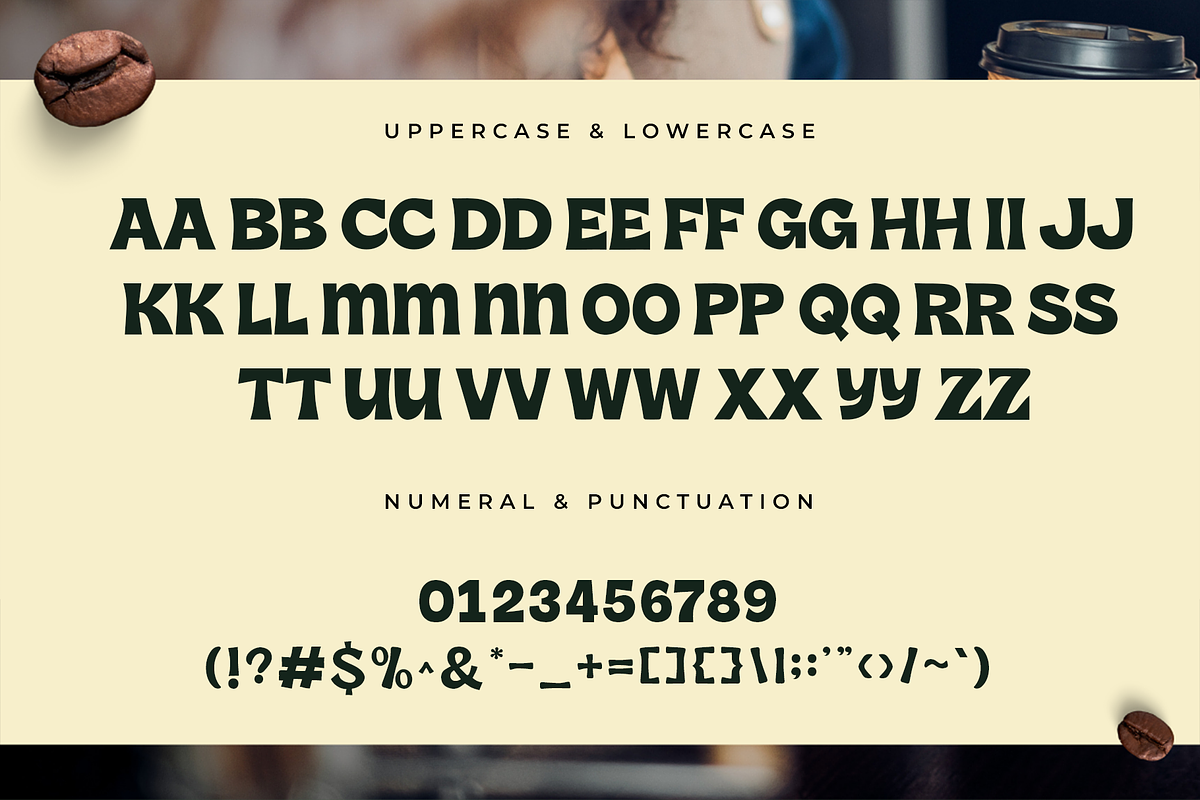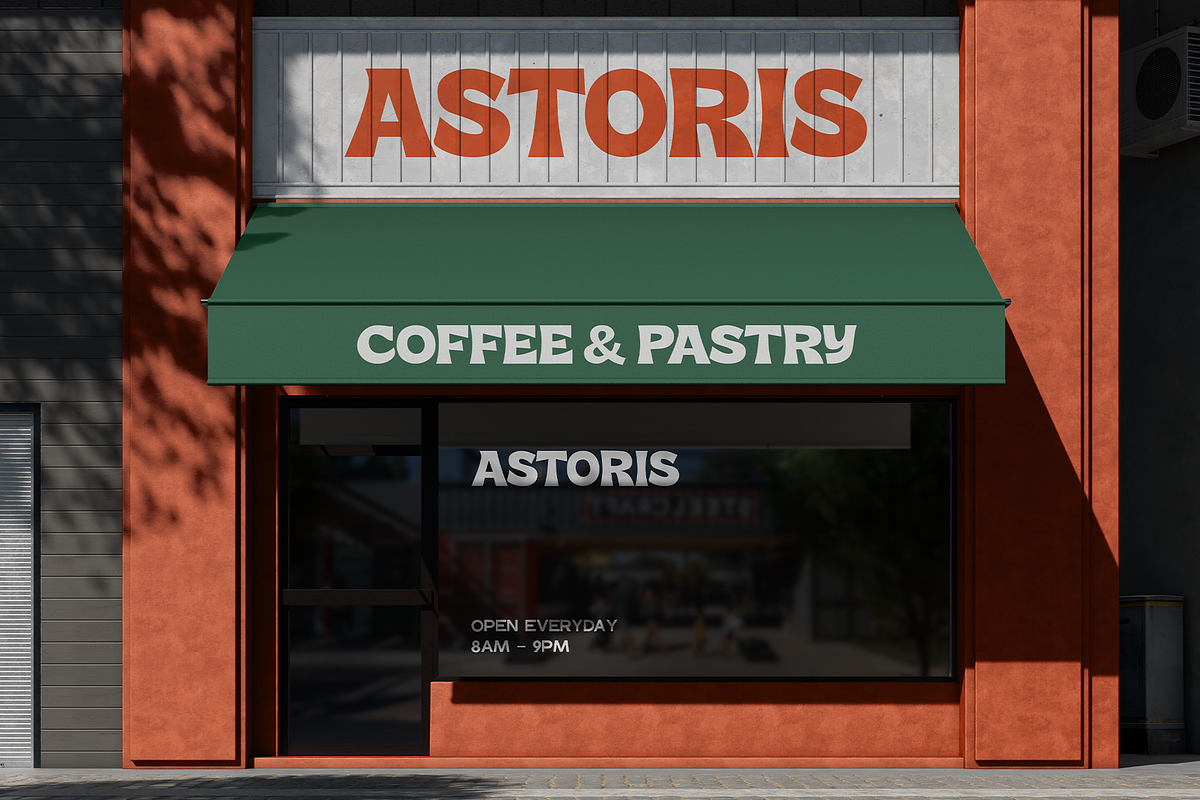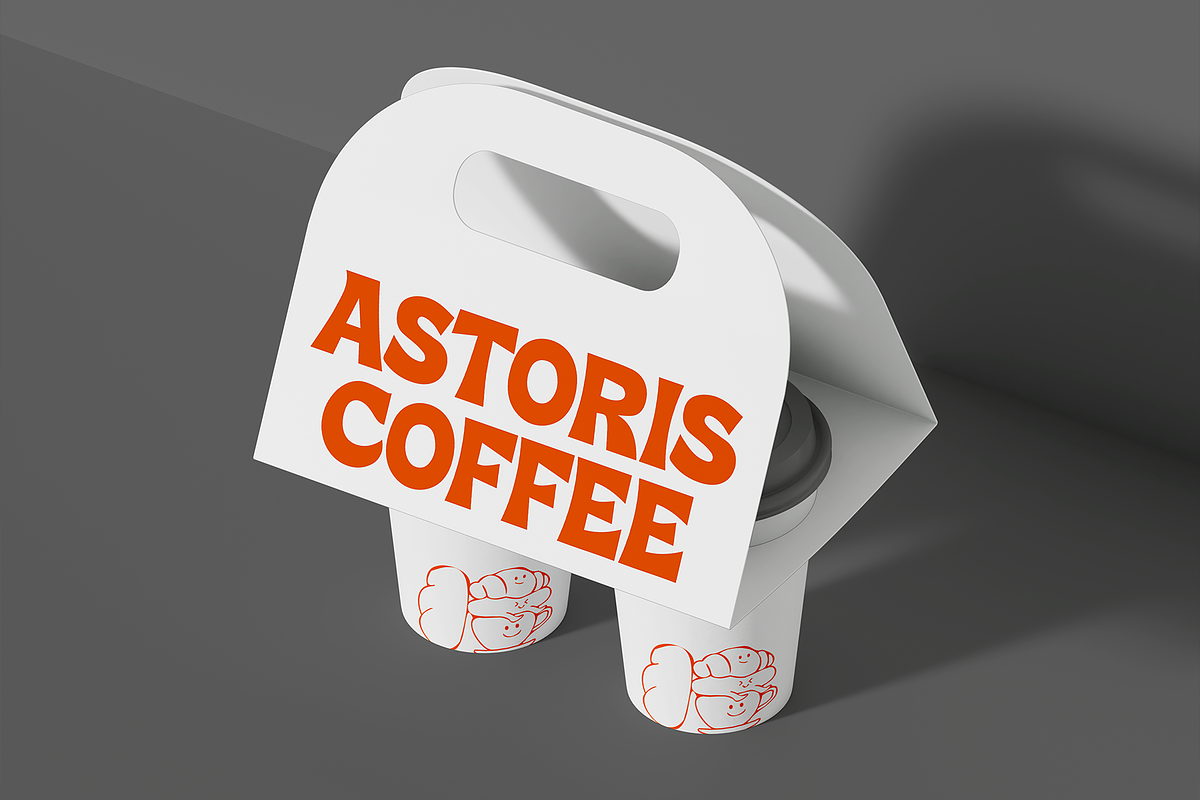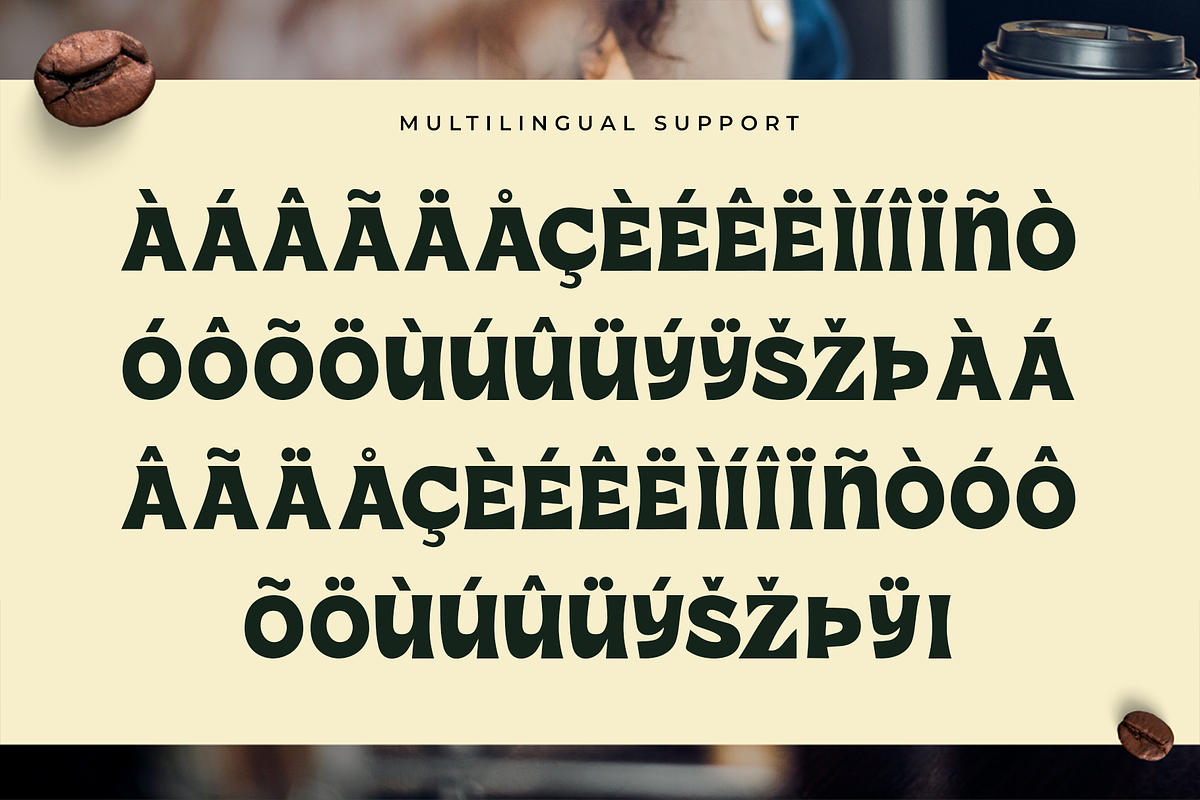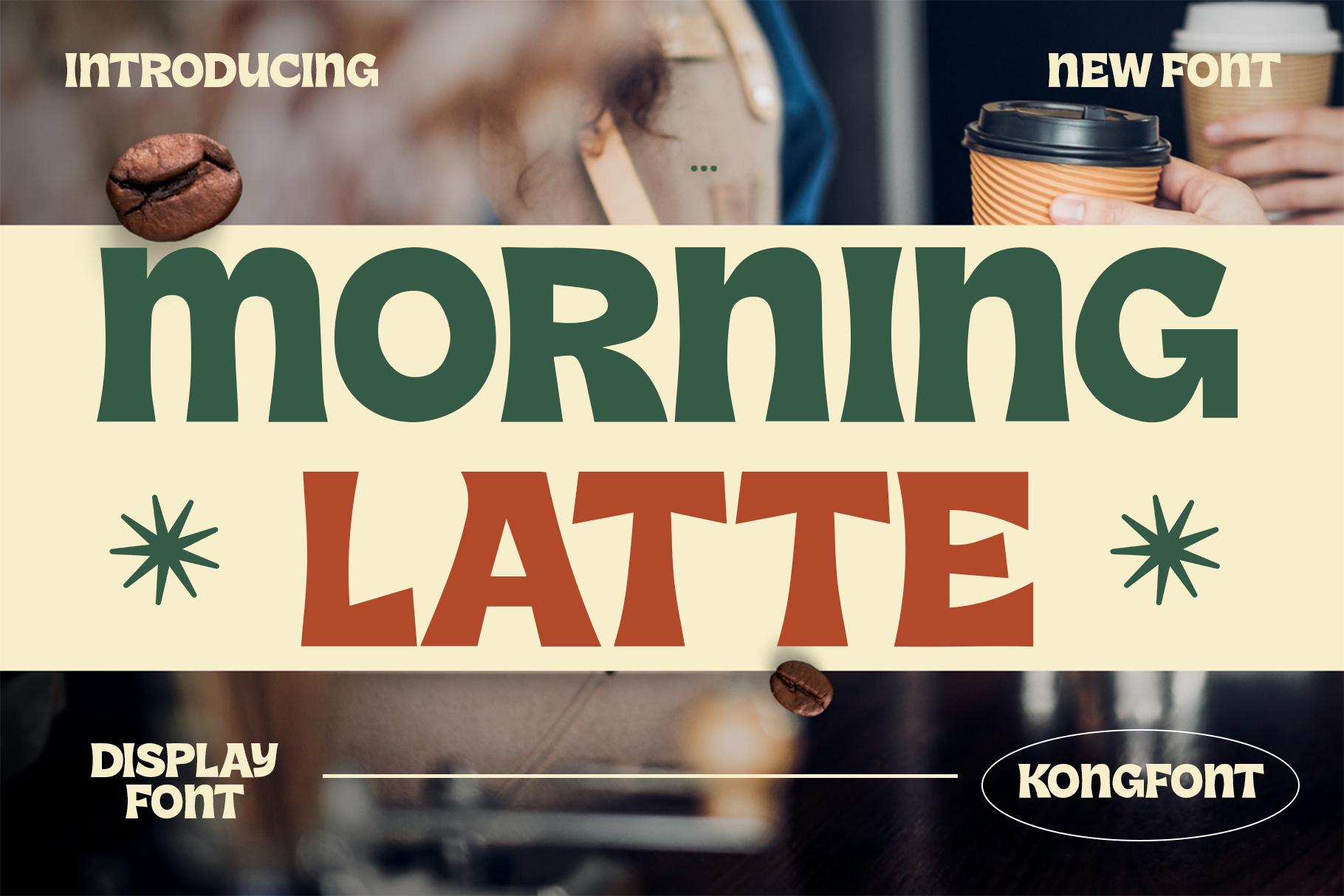
Morning Latte - Modern Display Font
Morning Latte is a modern display font designed to bring warmth, personality, and bold visual appeal to your creative projects. Featuring distinctive letterforms, smooth curves, and contemporary styling, Morning Latte strikes the perfect balance between playful charm and modern sophistication.
Morning Latte includes uppercase and lowercase letters, numerals, punctuation, and multilingual support, ensuring versatility across both print and digital media. Whether you're creating a standout logo or an eye-catching promotional design, this font adds energy and style to every composition.